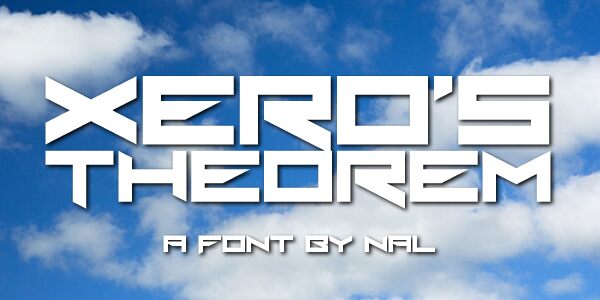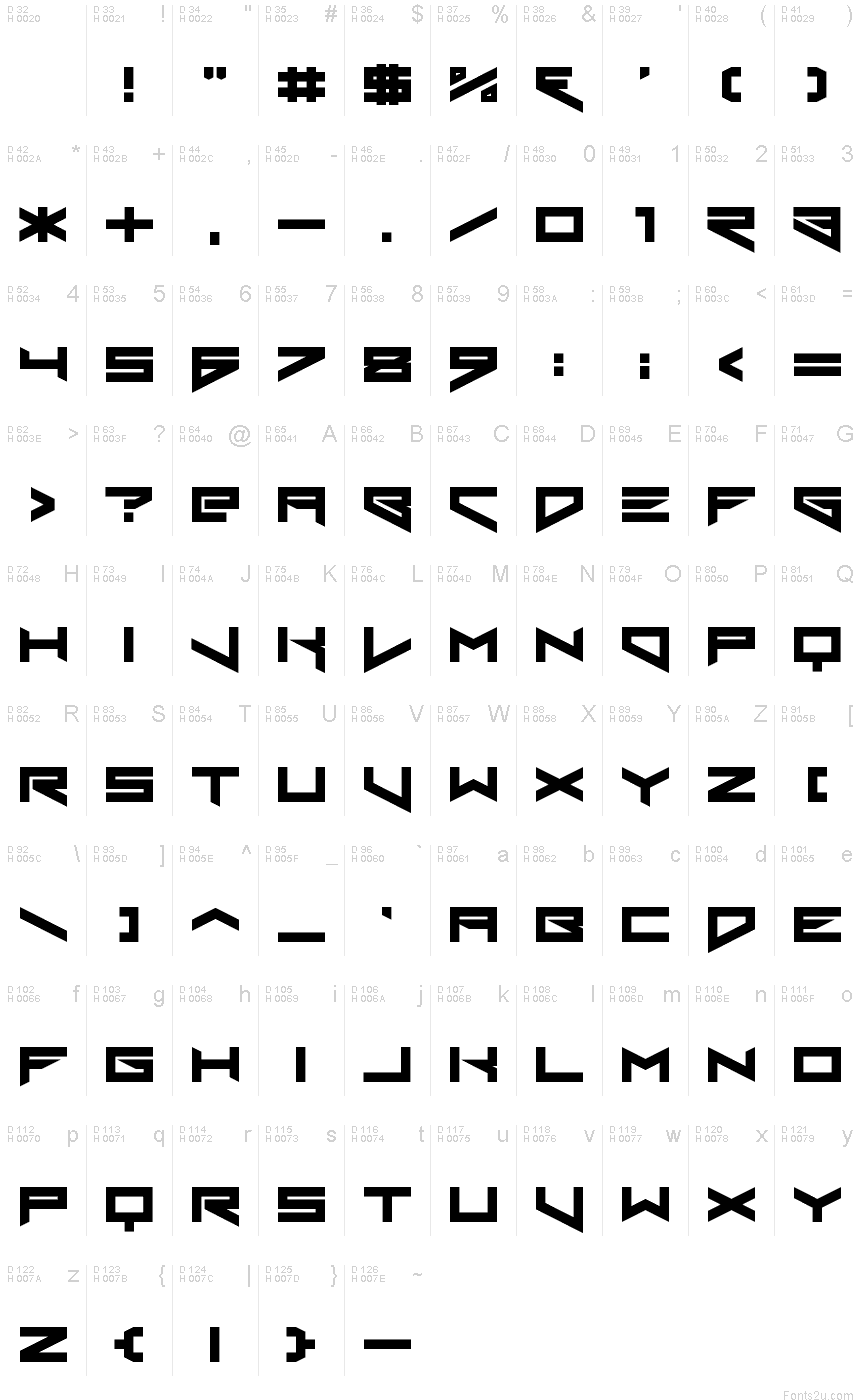
Xero's Theorem by NAL of FontStruct is a free futuristic display font with broad, angular capitals and a severe machine-cut profile. Deep triangular notches, extended crossbars, and sharply sliced openings give the lettering the look of custom panels from a spacecraft or arcade cabinet.
Its engineered shapes suit science-fiction game graphics and electronic music packaging for much the same reason: each letter resembles a designed piece of hardware. The angular forms also fit technology branding and event posters, especially when the subject leans toward robotics, gaming, or speculative machinery. In those settings, the lettering can become part of an interface, insignia, or vehicle marking rather than serving as neutral text.
Xero's Theorem
NAL